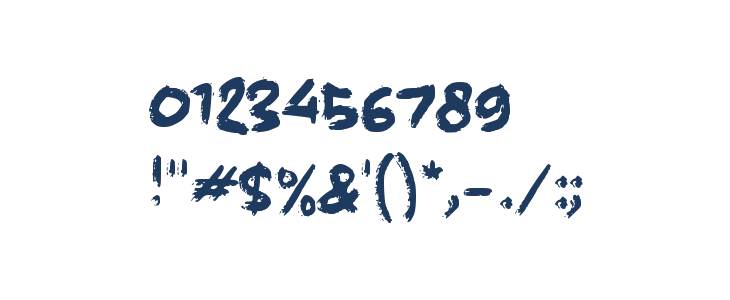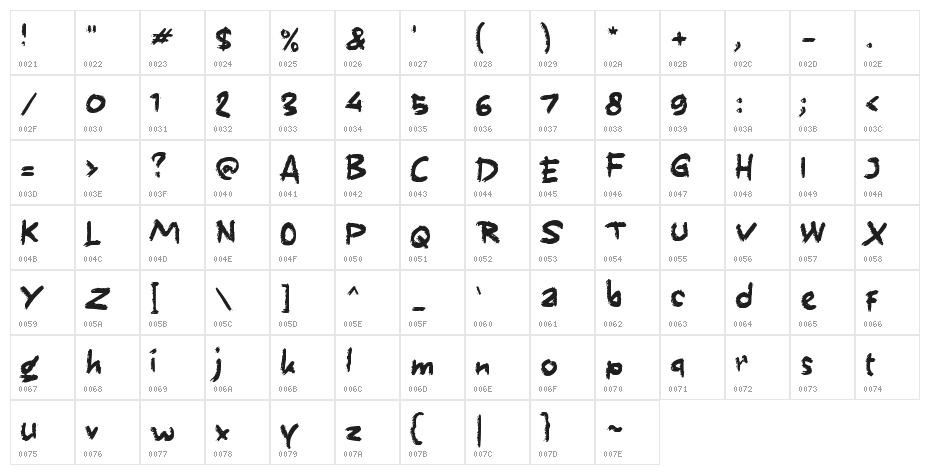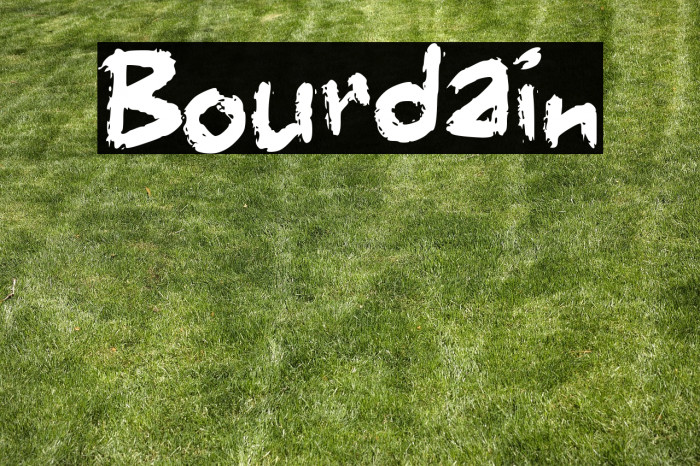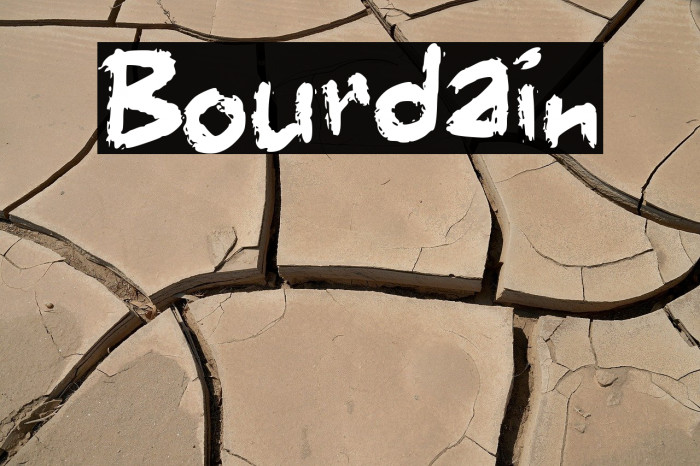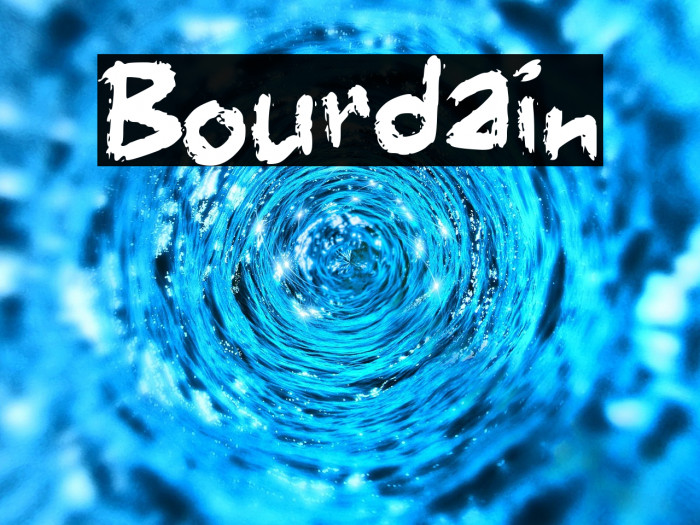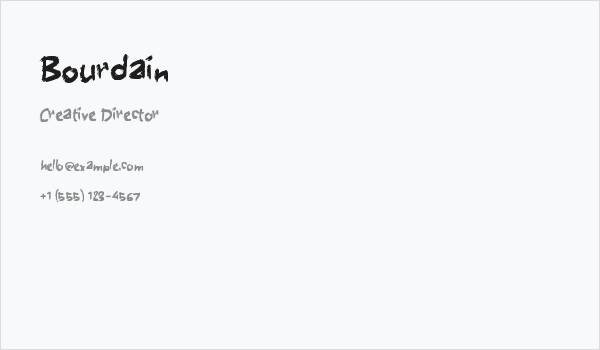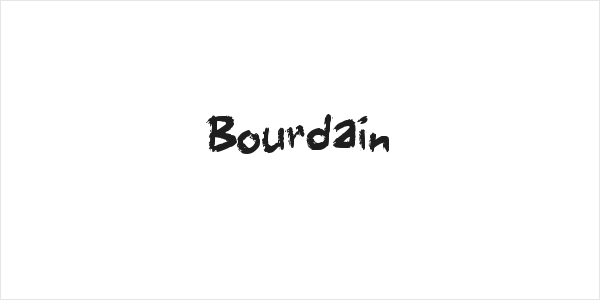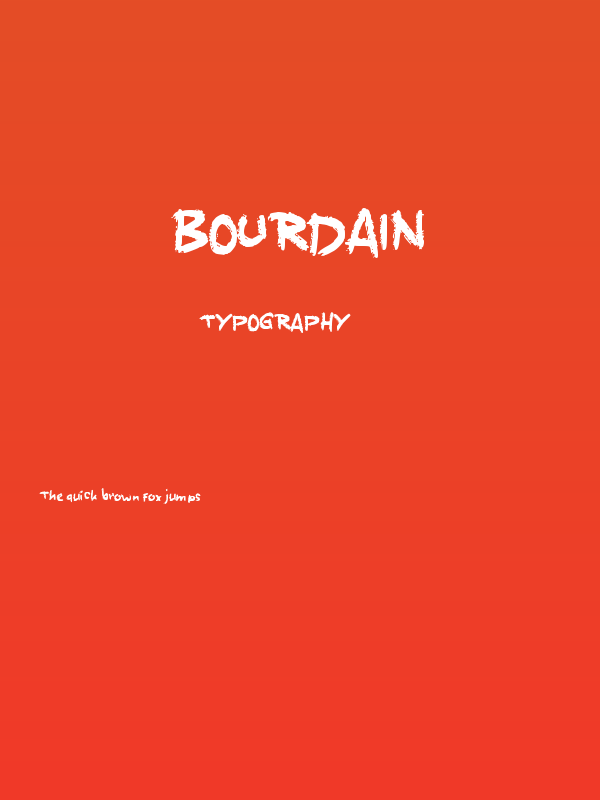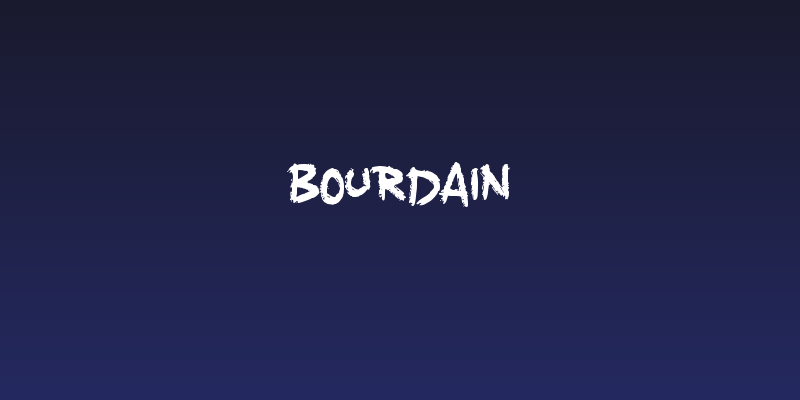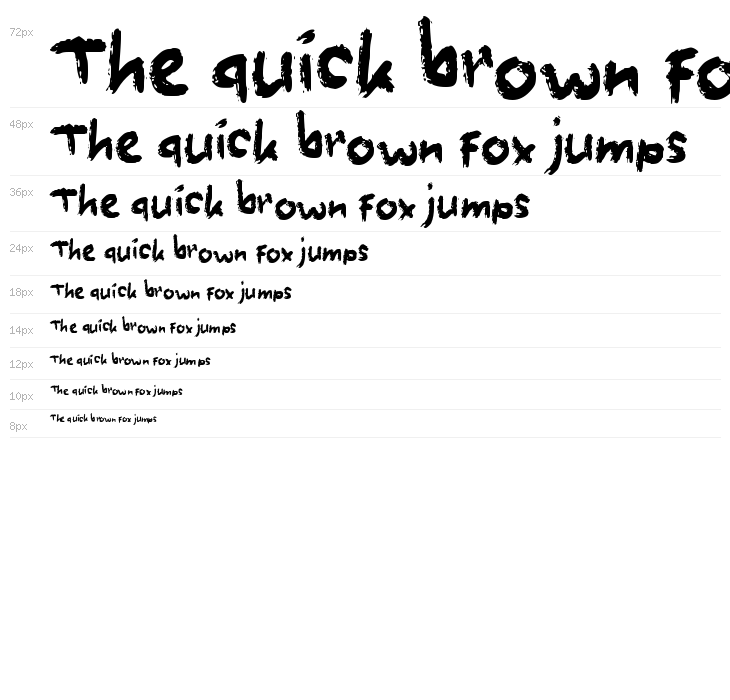
Bourdain Font
Bourdain Description
This font features a bold and expressive style with a hand-painted appearance. The characters are irregular and dynamic, giving a sense of movement and energy. The strokes are thick and uneven, with a rough texture that adds to its artistic flair. This font captures a raw and edgy aesthetic, making it suitable for projects that require a strong visual impact. The uppercase and lowercase letters maintain a consistent style, while the numbers and special characters complement the overall design. Its unique appearance makes it stand out, perfect for creative and unconventional uses.